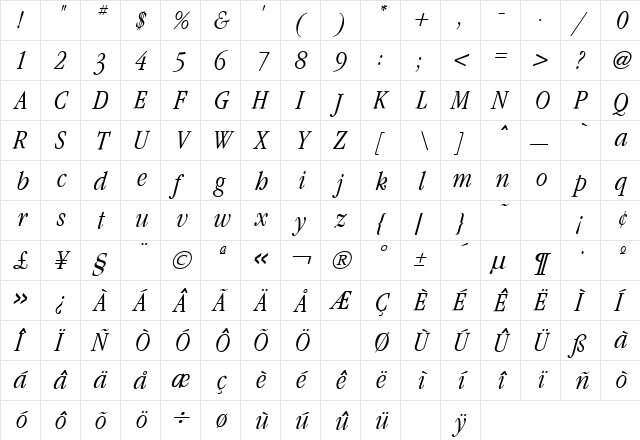
Garamond Condensed Light Italic Font Preview
Design Context for Garamond Condensed Light Typeface
Garamond Condensed Light offers clean, dependable letterforms without strong stylistic allegiance, making it a practical choice for designers who need flexibility. The dynamic lean of this cut emphasises speed and emphasis in any layout. Its slender proportions lend an understated elegance to any composition. Its narrow stance lets it pack a punch even in space-constrained designs.
Pro Tip: Try Garamond Condensed Light for annotation and caption copy alongside an upright companion — the contrast in angle creates a dynamic but ordered typographic system.